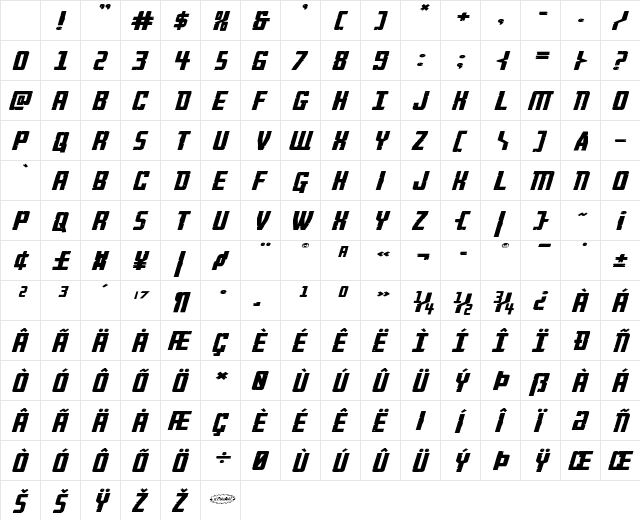
Complete Rockledge Extra-Expanded Ital Extra-Expanded Italic glyph index. Displaying only characters natively supported by Rockledge Extra-Expanded Ital Extra-Expanded Italic font.
Rockledge Extra-Expanded Ital is a composed and adaptable typeface that performs quietly and consistently across a wide range of design contexts. The slanted form adds forward momentum and visual energy.